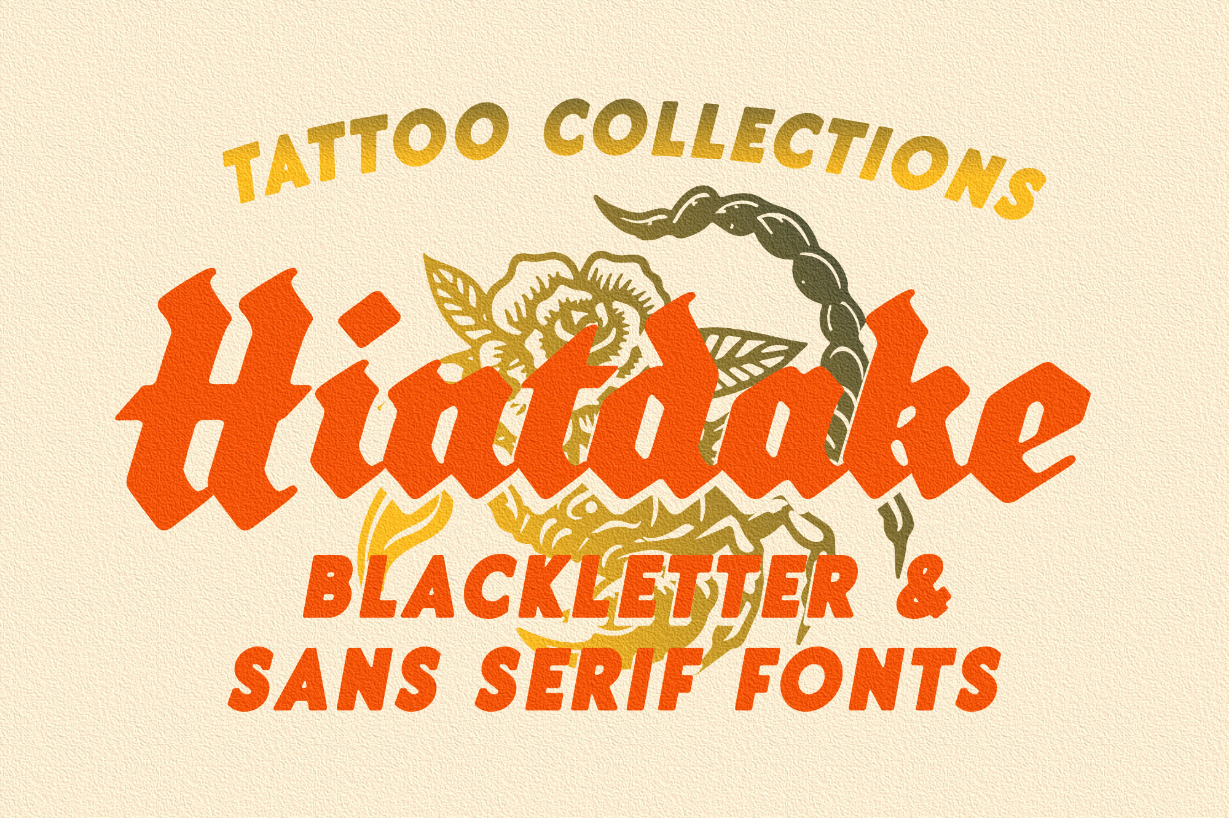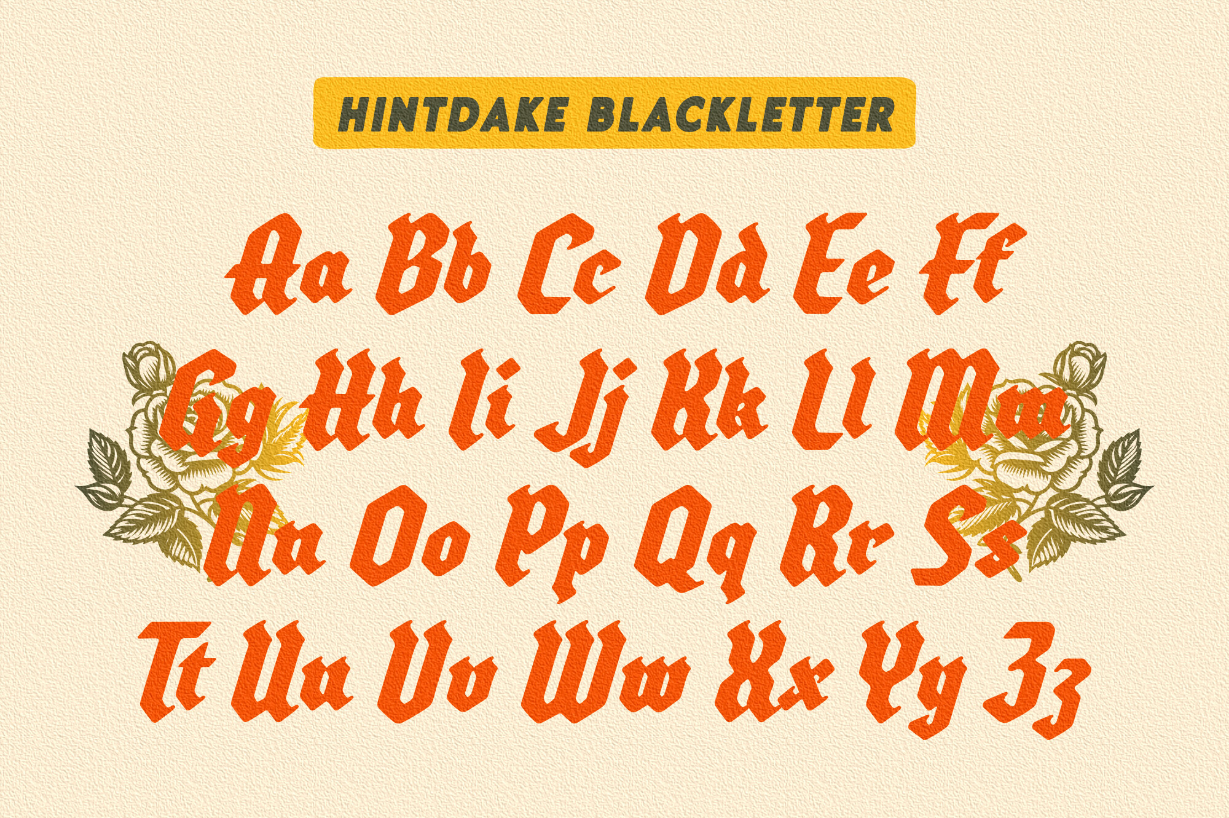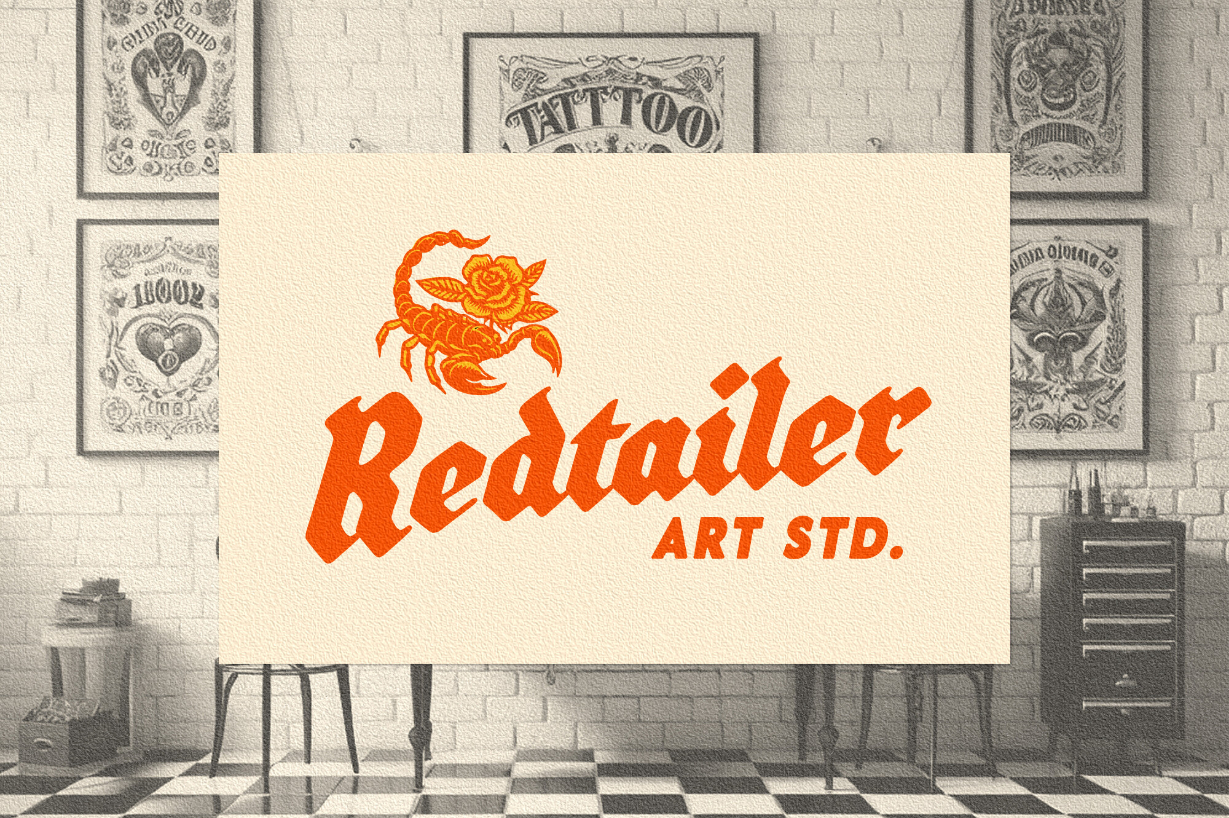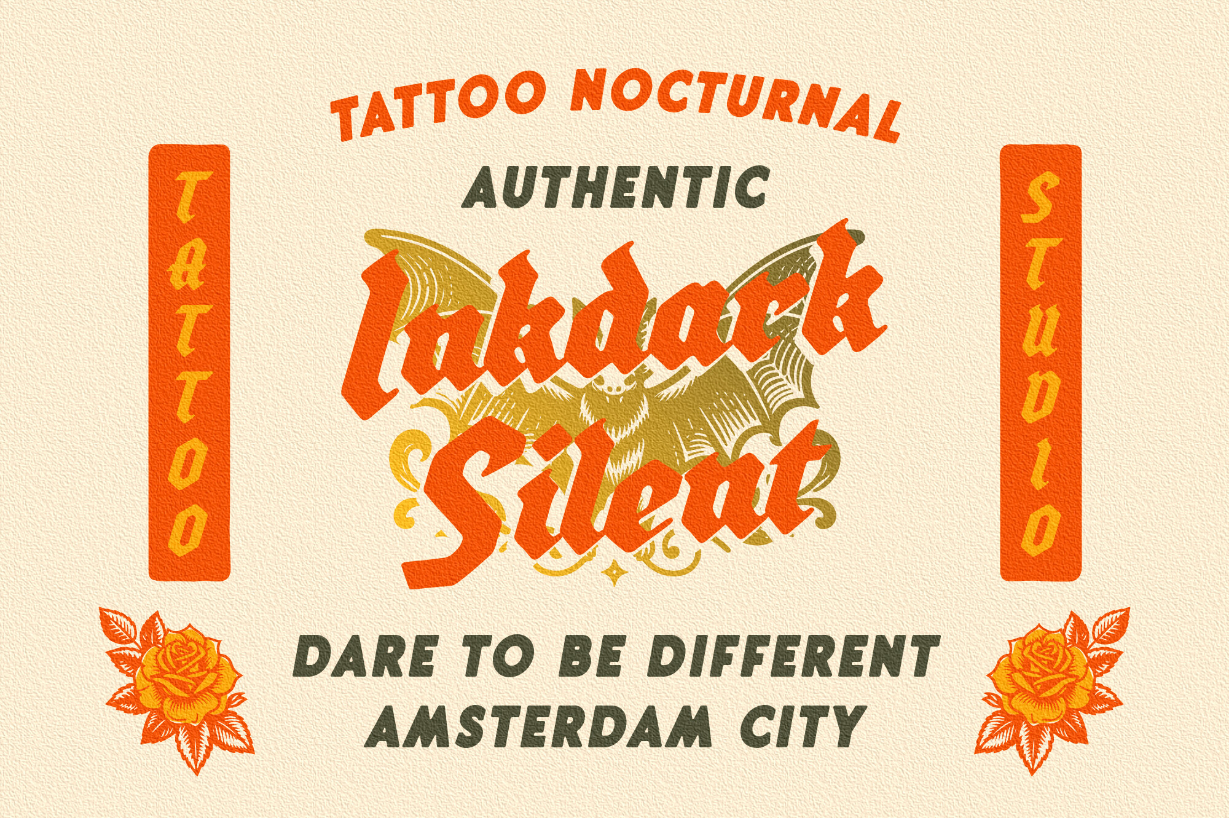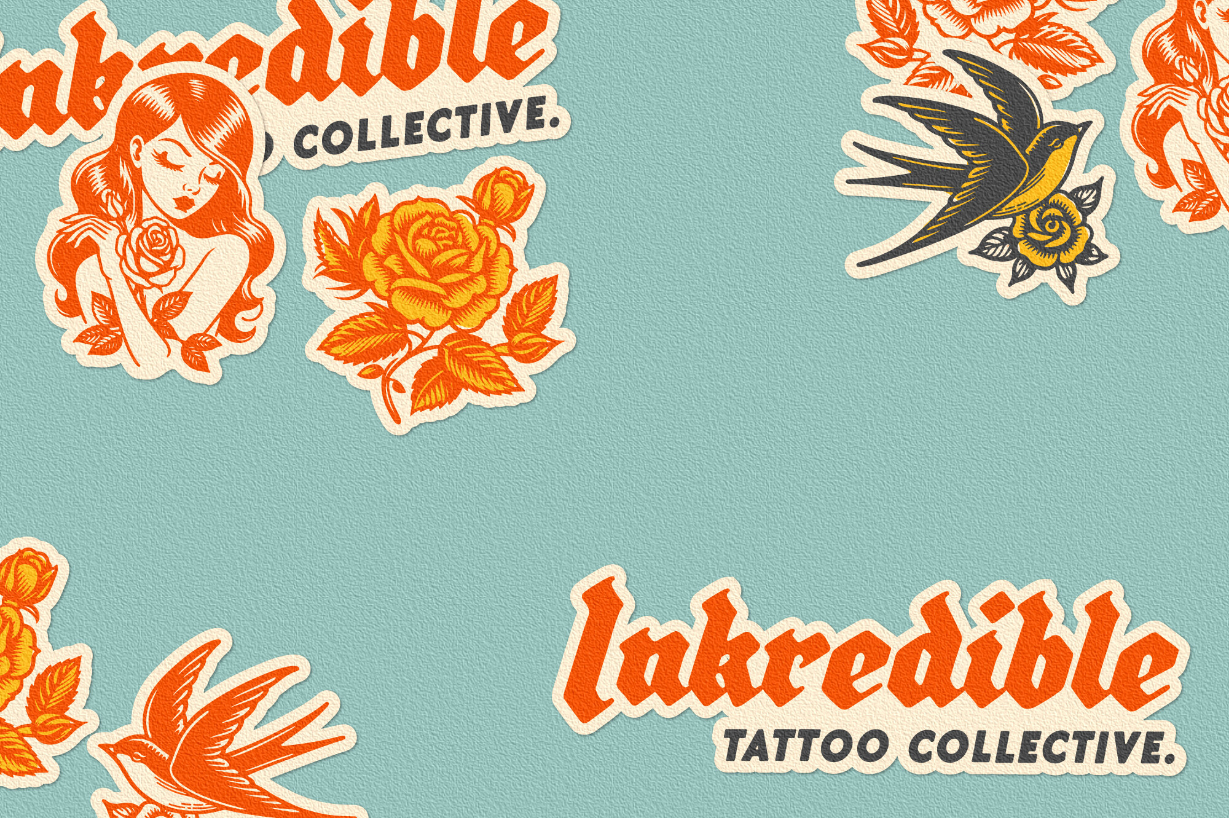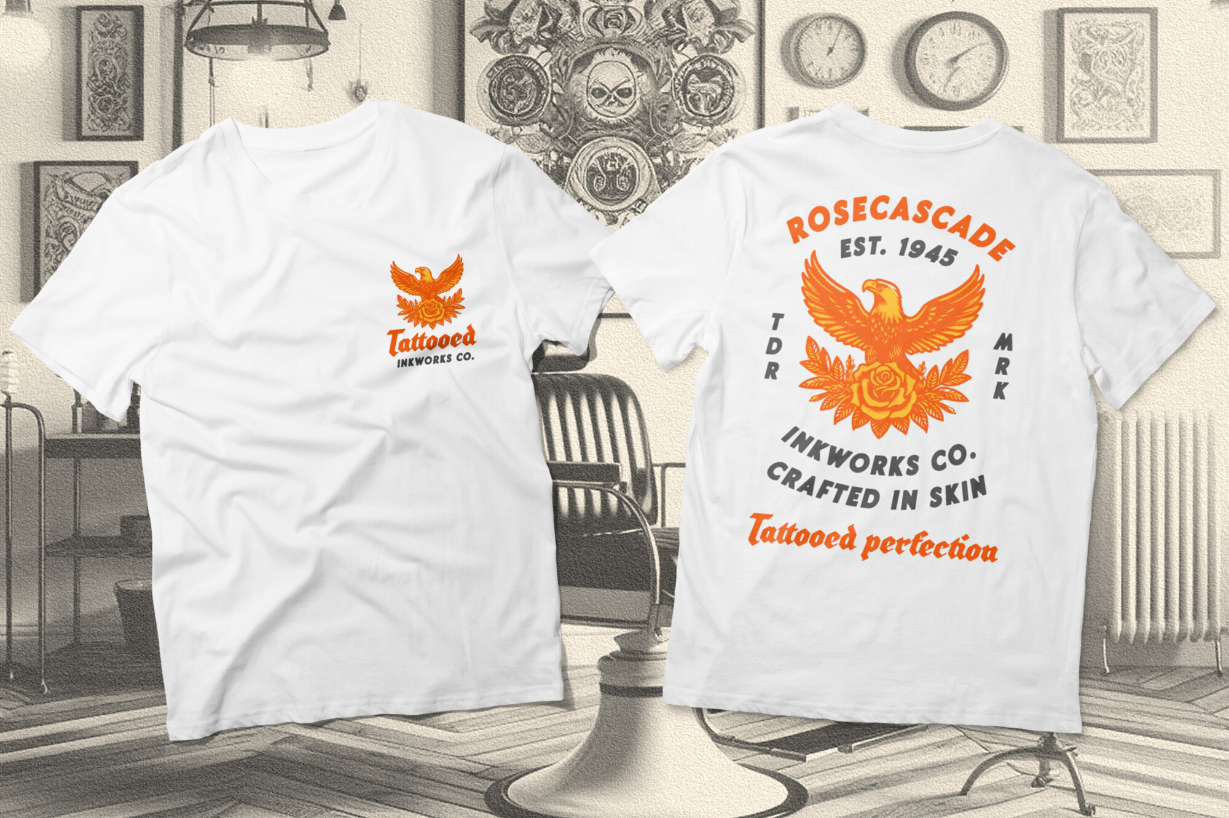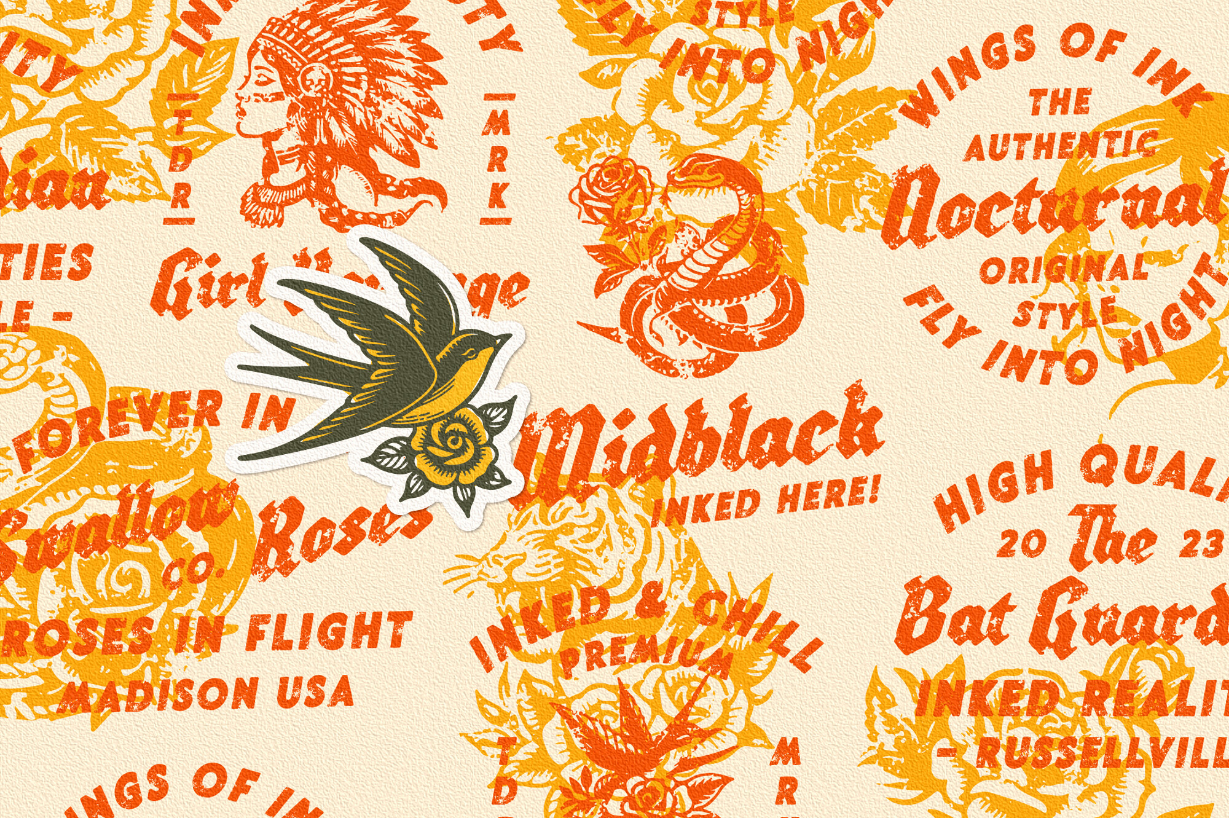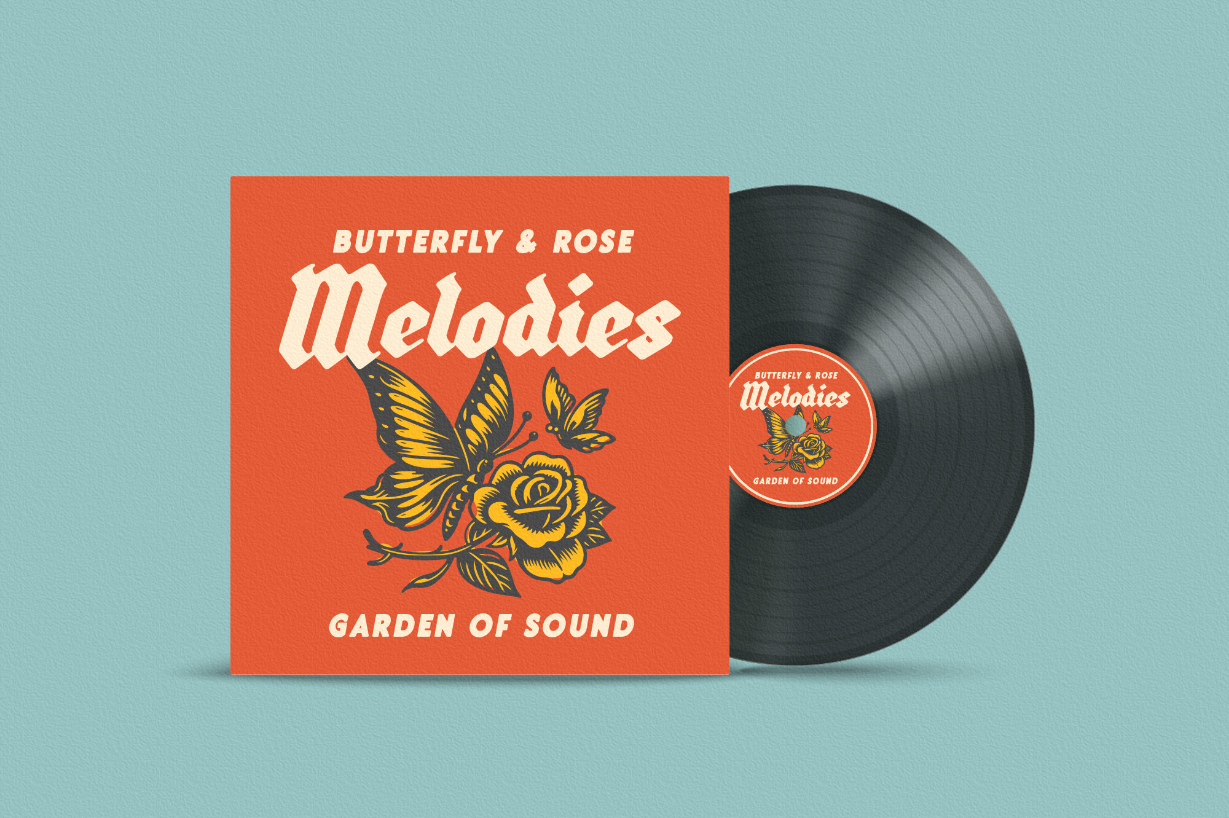
Hintdake Font
About Hintdake Font
Hintdake is more than just a font; it’s your ticket to a tattoo font collection. Featuring three styles (regular, rough, and stamp) and 26 bonus tattoo illustrations. Hintdake is your secret weapon for standout logos, branding, and apparel designs. Dive into the world of blackletter fonts and make your creative mark with this exceptional collection.